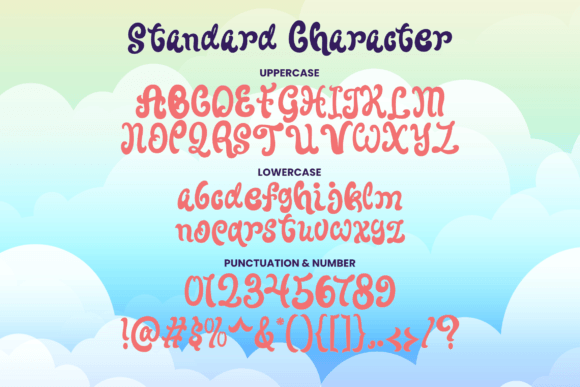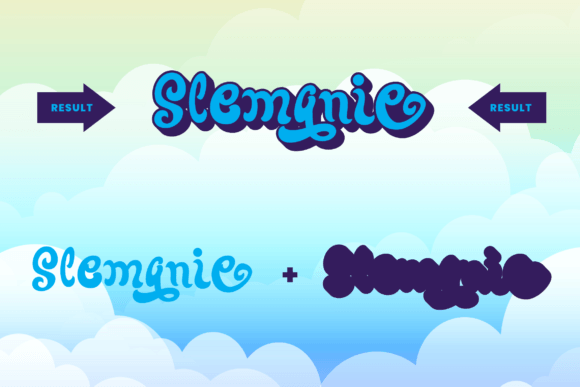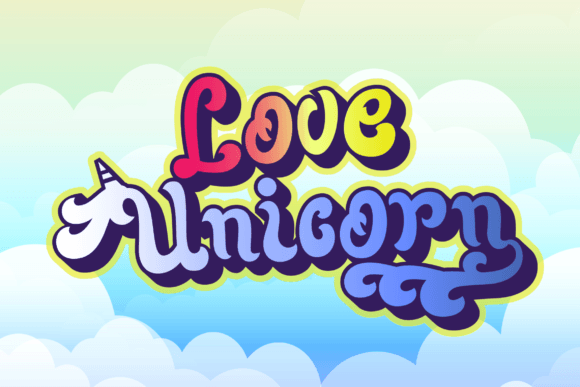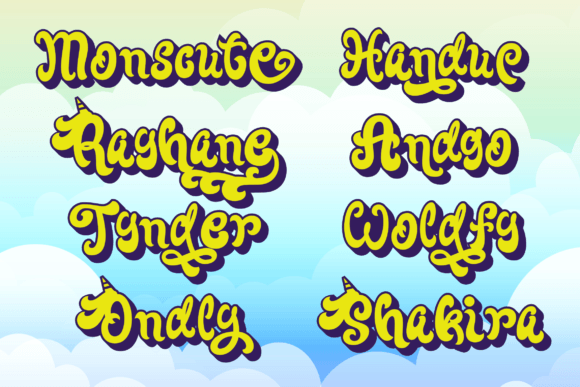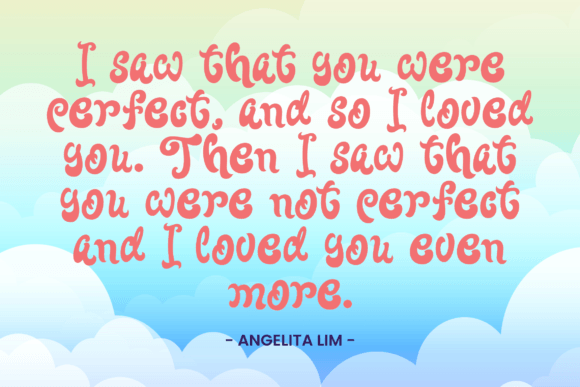
Introduction to Glunicorn Font
Glunicorn is a fun, jolly and incredibly charming display font.
It embodies playfulness and authenticity and is the perfect choice for any children activity or school project This font is PUA encoded, which means you can access all of the glyphs and swashes with ease.
Key Features of Glunicorn Font